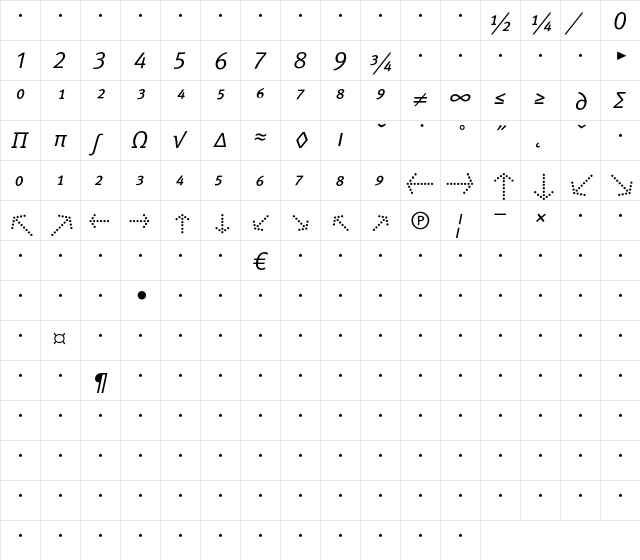
MetaNormalCyr-ItalicCapsExp Regular Font Preview
MetaNormalCyr-ItalicCapsExp Regular
Design Context for MetaNormalCyr-ItalicCapsExp Typeface
MetaNormalCyr-ItalicCapsExp offers clean, dependable letterforms without strong stylistic allegiance, making it a practical choice for designers who need flexibility. The slanted form adds forward momentum and visual energy.
Pro Tip: Use MetaNormalCyr-ItalicCapsExp for emphasis, pull quotes, and subheadings where its slanted energy can add rhythm to the layout.